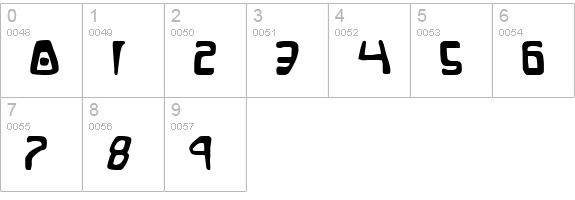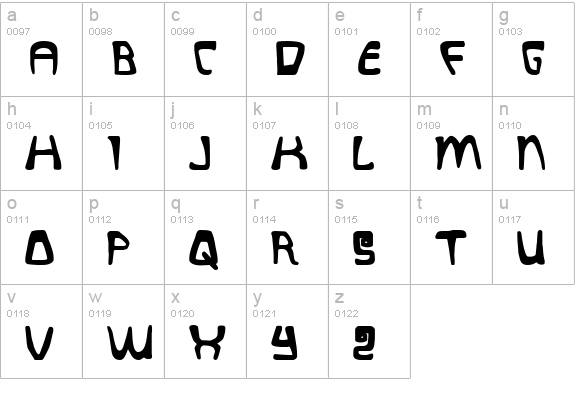
Quatl Bold Font Details
Quatl Bold is a strong, high-contrast variant in the Quatl typeface family \xE2\x80\x94 well suited to headlines, attention-grabbing titles, and strong calls-to-action.
Introducing Quatl Bold, a typeface that exudes strength, confidence, and boldness. This captivating font is perfect for making a statement and grabbing attention with its powerful, yet elegant design. Each letter is meticulously crafted to showcase a unique blend of sharp edges and smooth curves, creating a harmonious balance that is visually pleasing to the eye. Quatl Bold is not only visually striking, but it also offers versatility and flexibility, making it suitable for a wide range of projects and purposes. Whether you're designing a logo, creating eye-catching headlines, or crafting impactful marketing materials, this font will effortlessly elevate your work to new heights. One of the best features of Quatl Bold is that it is freely available to download at FontsMarket.com. This means that you can enjoy the benefits of this remarkable font without any cost or restrictions. With just a few clicks, you can easily add this font to your collection and start using it in your projects right away. With its clean and legible design, Quatl Bold ensures that your message is delivered with clarity and impact. Its bold and commanding presence on the page will capture the attention of your audience and leave a lasting impression. Whether it's used in print or on digital platforms, Quatl Bold will make your text pop and stand out from the crowd. So, why settle for ordinary when you can make a bold statement with Quatl Bold? Download this incredible font for free at FontsMarket.com and unleash your creativity like never before. Experience the power and beauty of this typeface and take your designs to the next level. Don't miss out on this opportunity to enhance your projects with Quatl Bold - the perfect blend of elegance and strength.